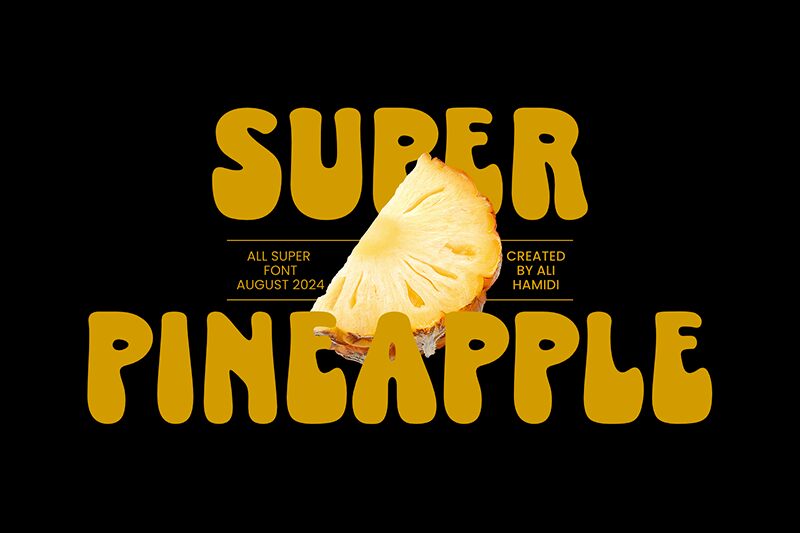
Super Pineapple
Super Pineapple font by fsuarez913 is a captivating display typeface that radiates playfulness and energy. With its bold, condensed, and round letterforms, this font evokes a friendly and approachable vibe. The bottom-heavy design adds a whimsical touch, echoing the groovy and optimistic aesthetics of the 60s and 70s.
Perfect for projects seeking to convey fun, youthfulness, and nostalgia, Super Pineapple is ideal for designs targeting younger audiences or aiming to create a cheerful atmosphere. Whether crafting vibrant posters or playful branding elements, this free font can be downloaded for diverse creative applications.